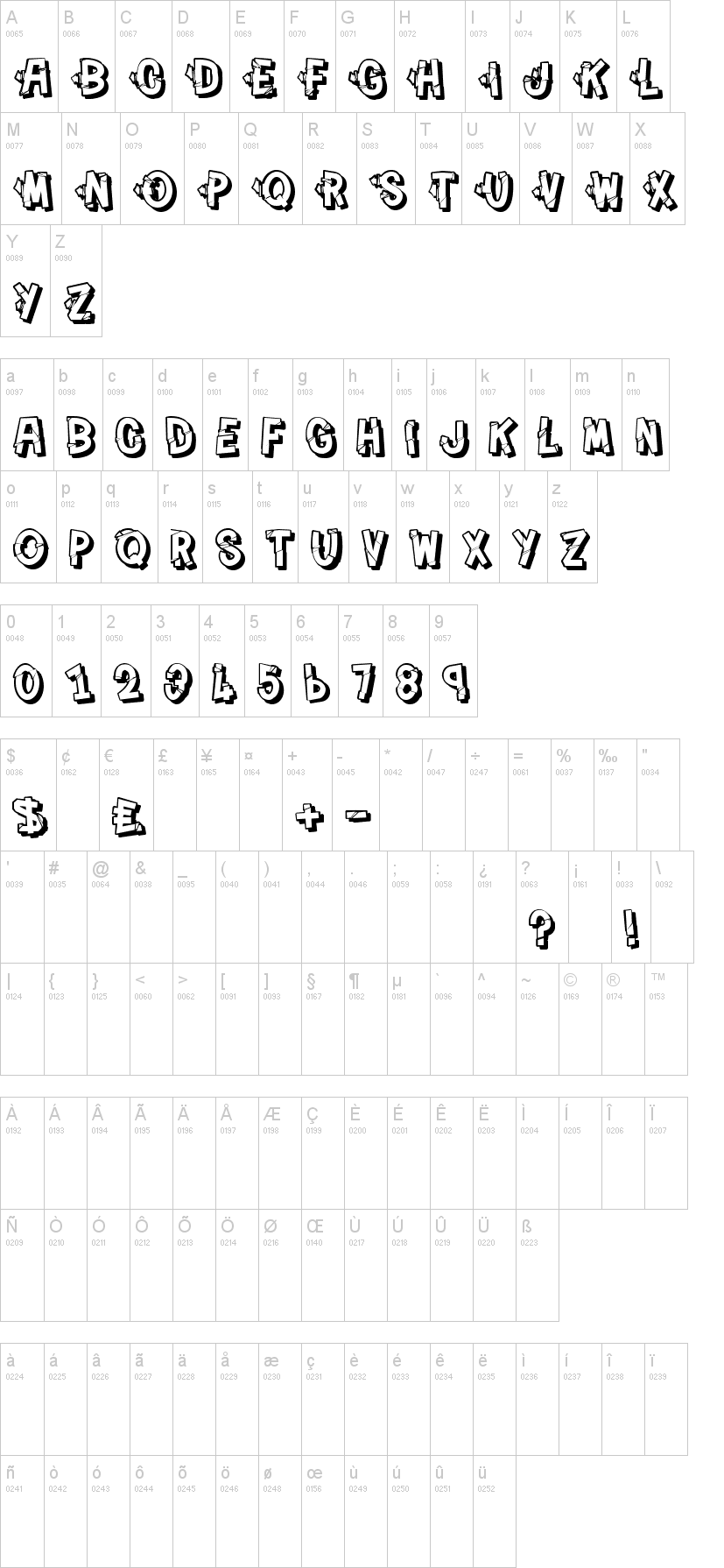
font graffiti keren dafont
Don graffiti is old school urban inspired graffiti style display font with a clean touch that is perfect for your designs to have that authentic look and feel the file includes otf format.